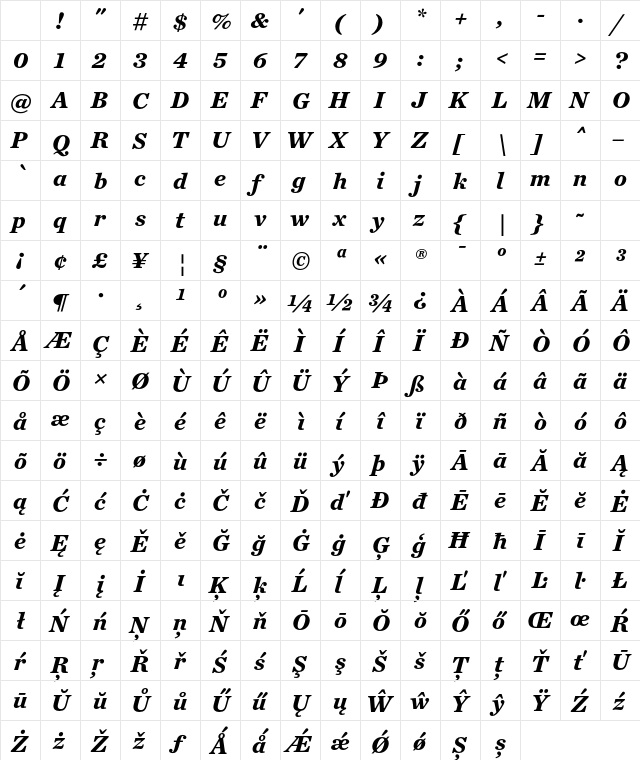
Complete Chronicle Text G3 Bold Italic glyph index. Displaying only characters natively supported by Chronicle Text G3 Bold Italic font.
Chronicle Text G3 is a composed and adaptable typeface that performs quietly and consistently across a wide range of design contexts. The slanted form adds forward momentum and visual energy. Its bold stroke weight gives it real presence on the page.
Pro Tip: Use Chronicle Text G3 for emphasis, pull quotes, and subheadings where its slanted energy can add rhythm to the layout.